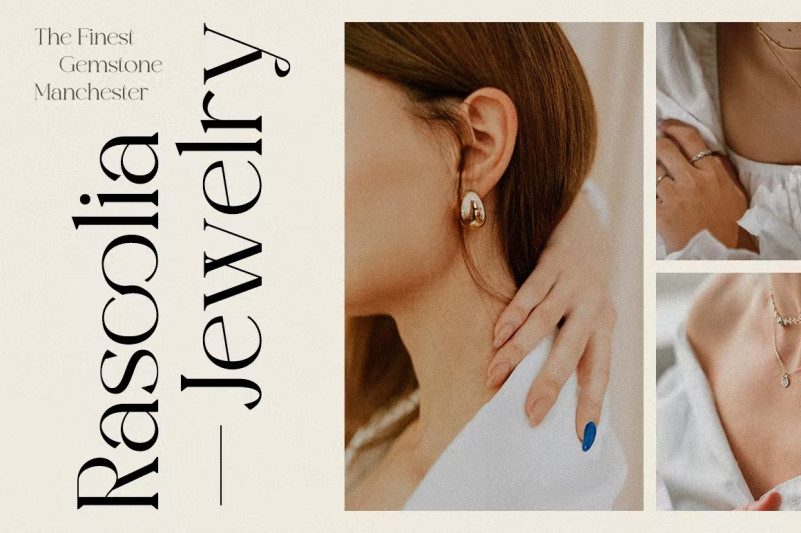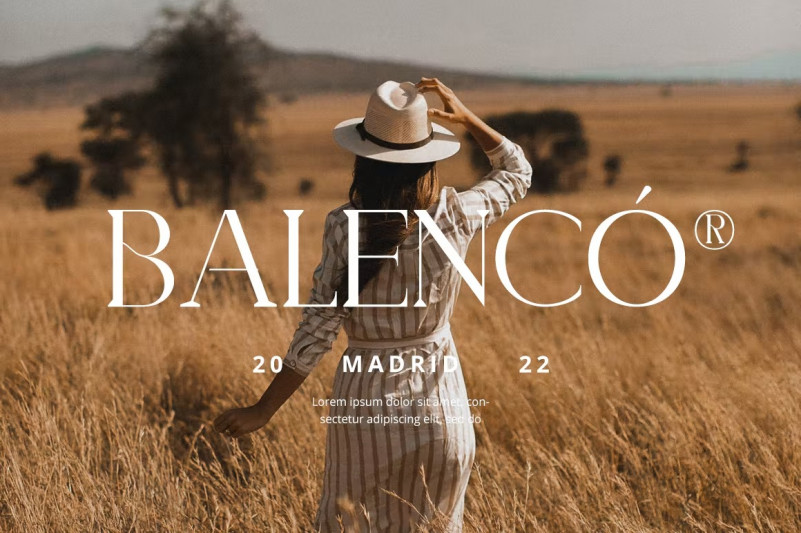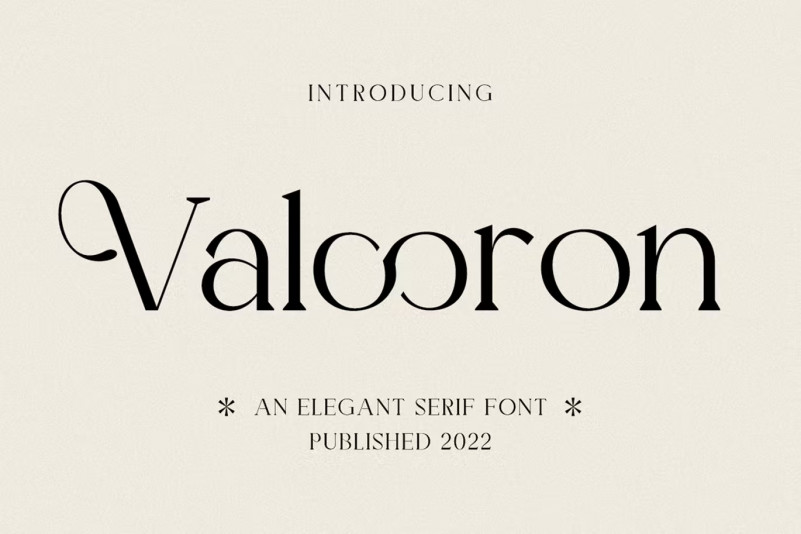
Valooron Font
Valooron is a distinct, elegant and authentic serif typeface. Masterfully crafted to become a real favorite, this font has the potential to take every one of your creative ideas to the next level!